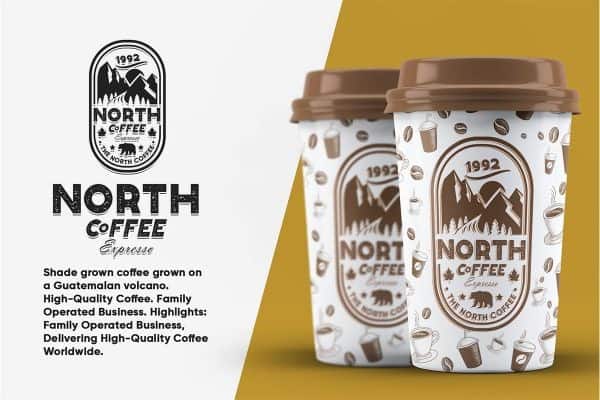
Road Summer Display Font is a clean bold typeface with a angled approach to characters, simple yet clean but useable as body text or as a Display font. This is perfect for branding projects, logo, book cover design, tshirt designs, social media posts, advertisements, product packaging, product designs, label, watermark, invitation, stationery and any projects.
Road Summer
Road Summer Italic